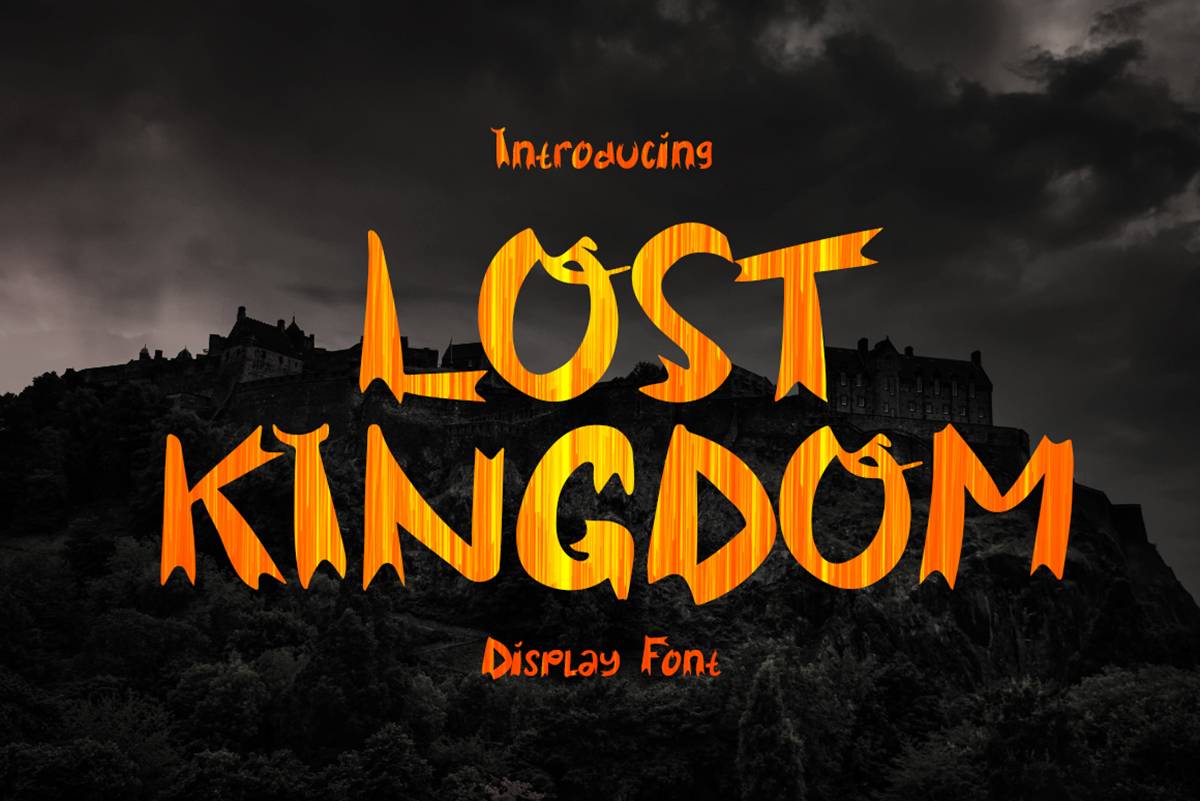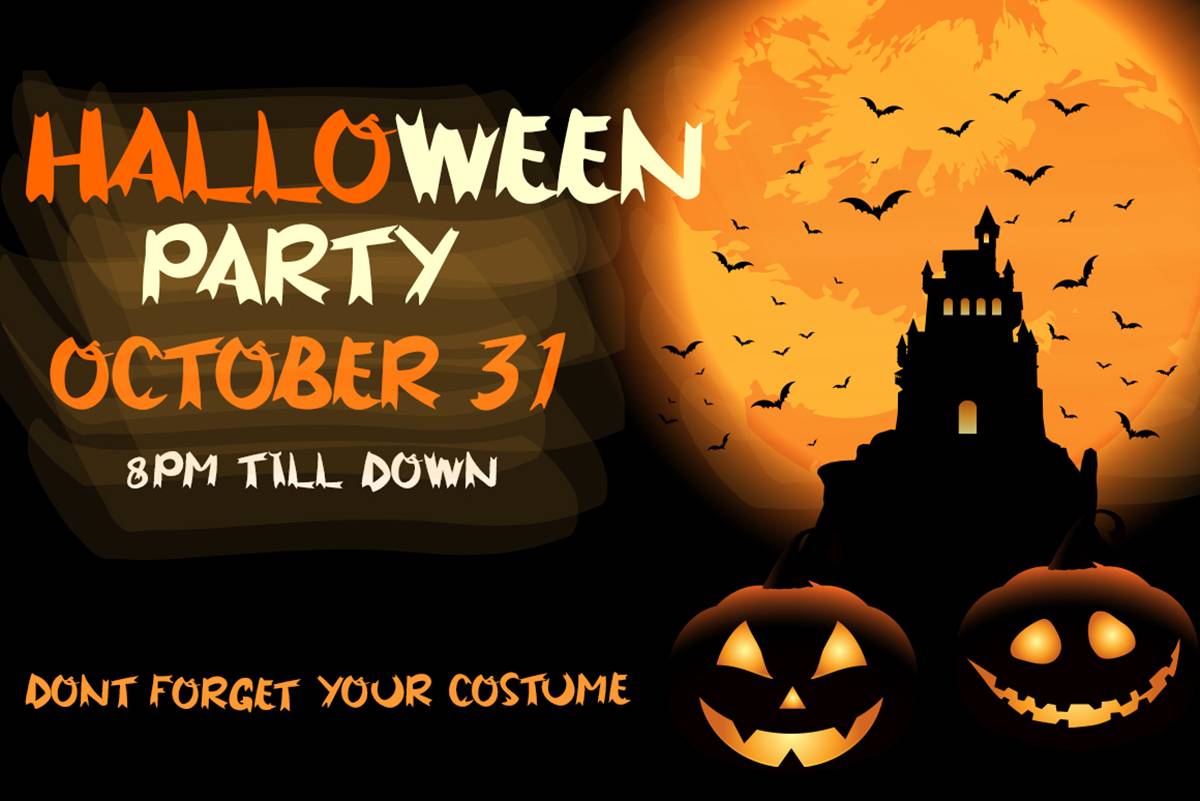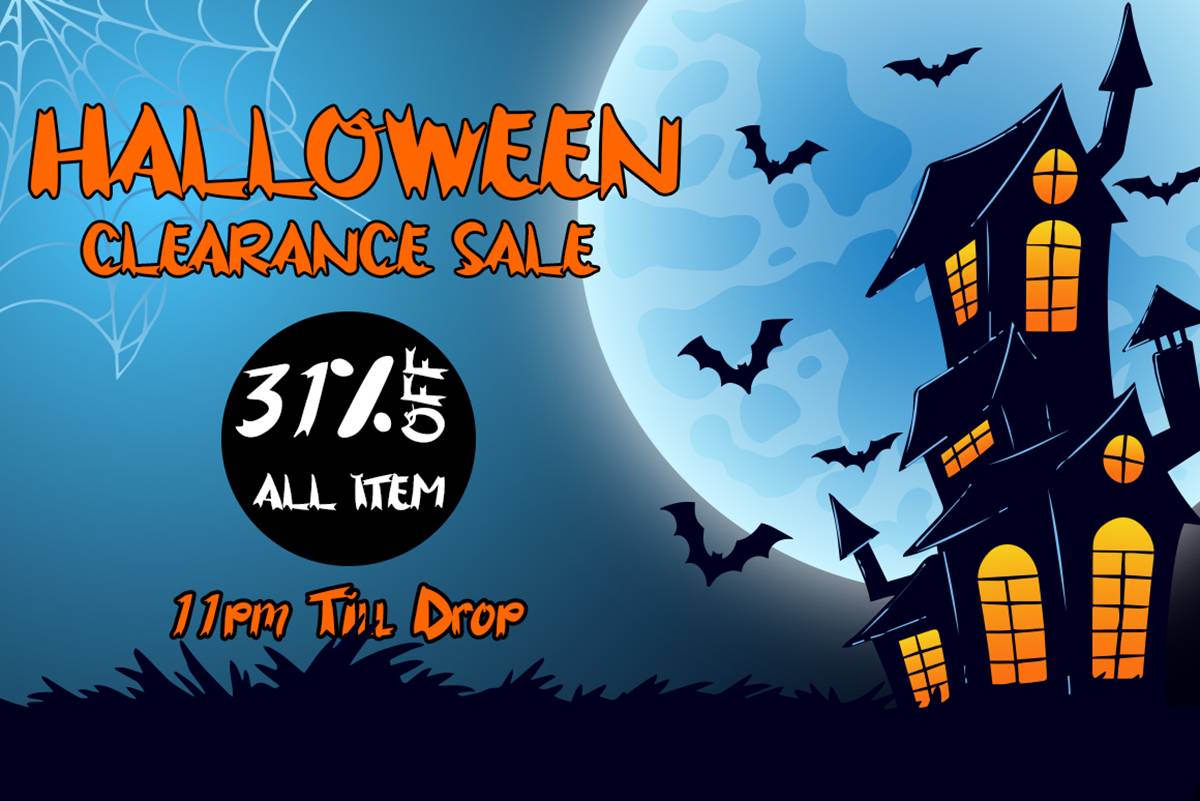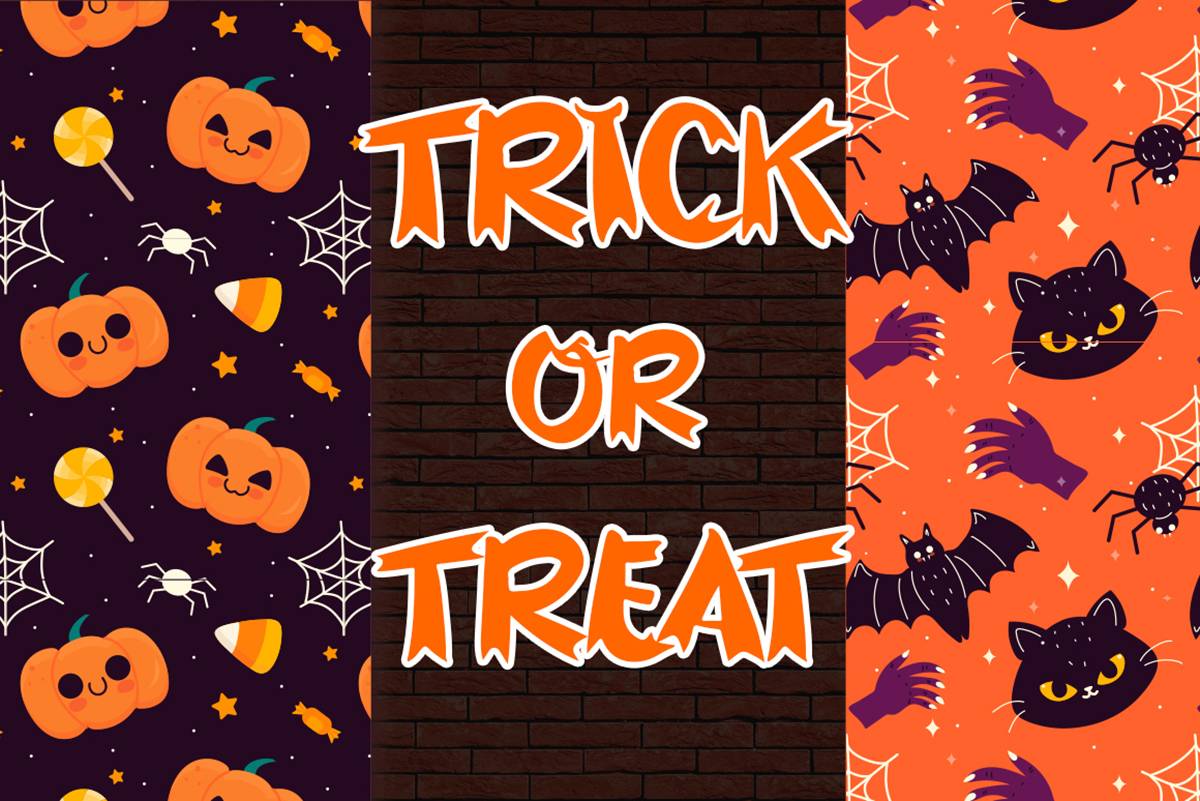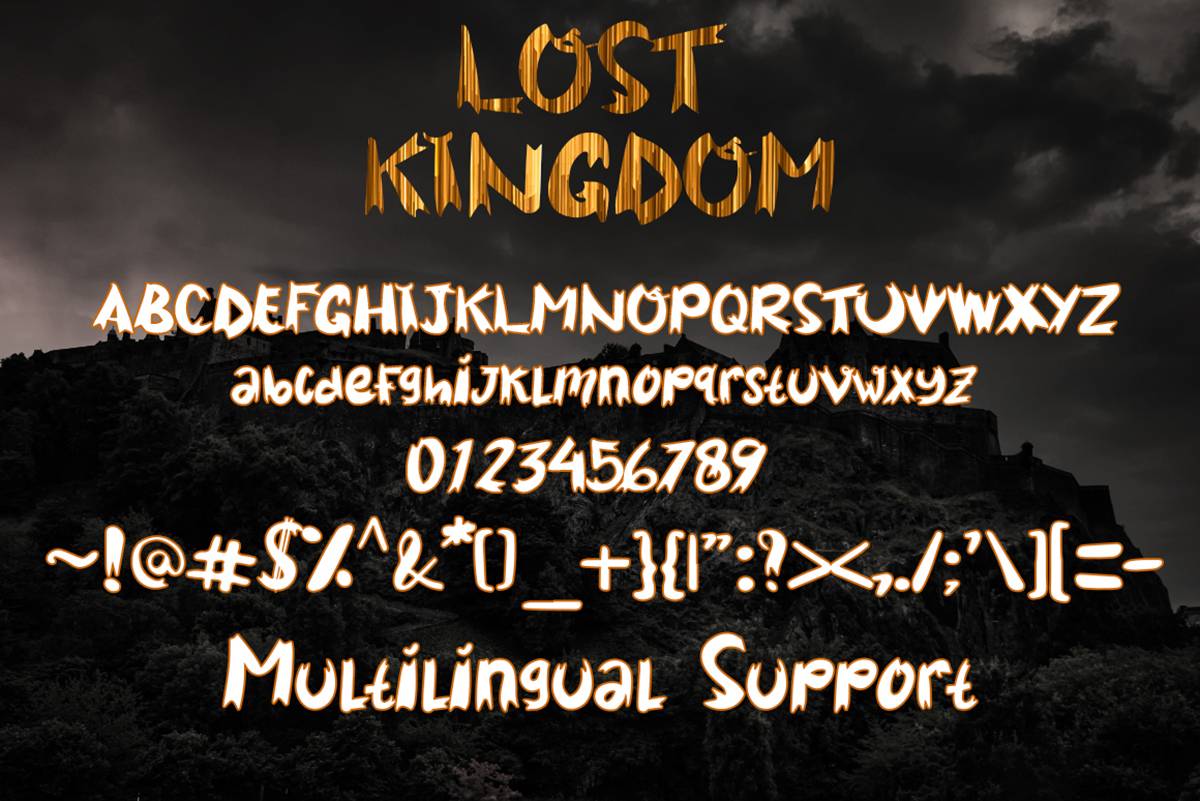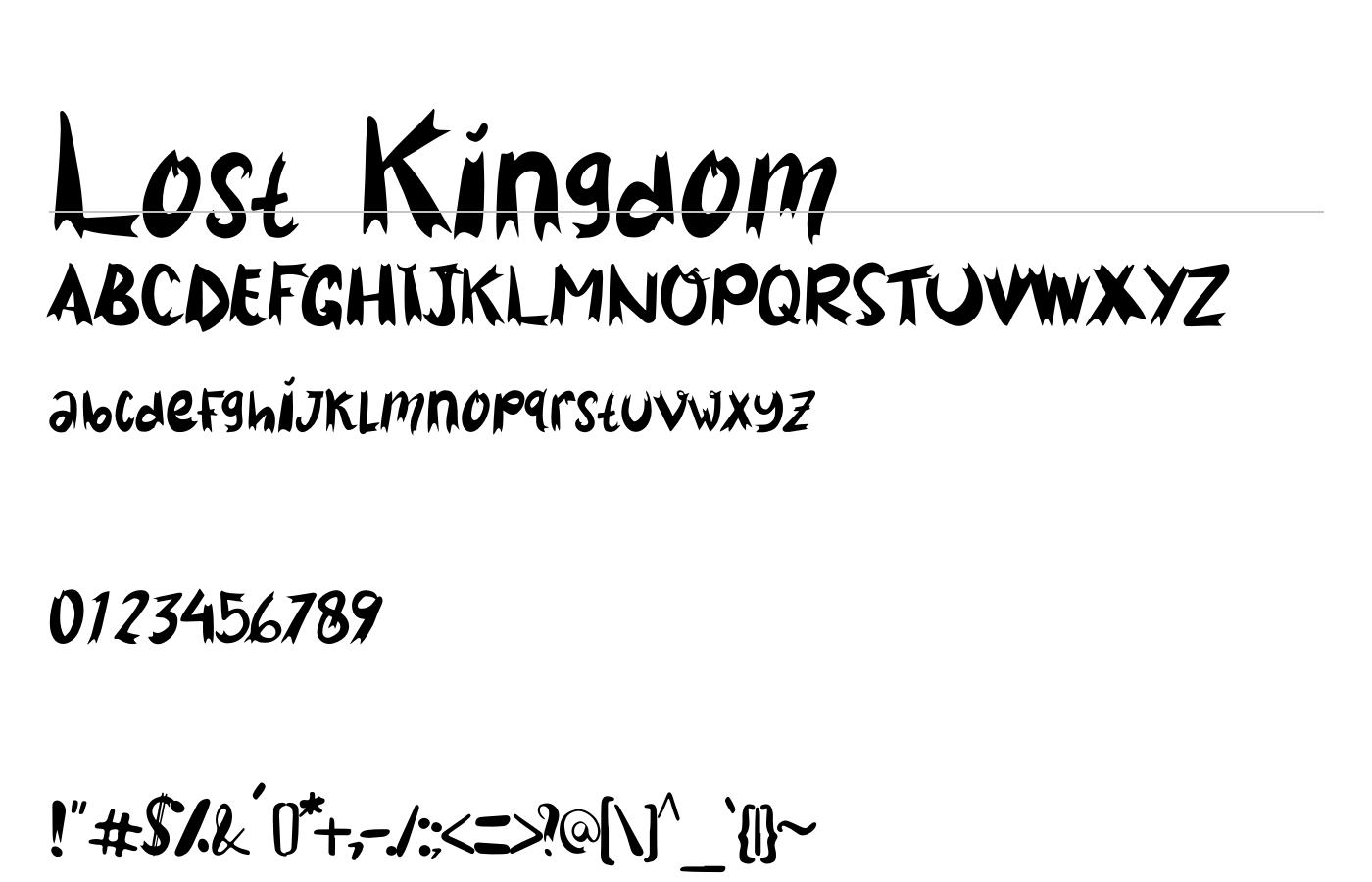
Lost Kingdom is a bold, playful display font with a hand-drawn feel, featuring irregular, jagged edges that evoke a sense of adventure and mystery. Its rough, quirky letterforms and lively personality make it perfect for creative projects that seek to capture a spirited, dynamic, or fantasy-inspired mood, such as posters, logos, or themed packaging. This font stands out best in headline or decorative use where its unique character can shine.
Lost Kingdom Font
About Lost Kingdom Font